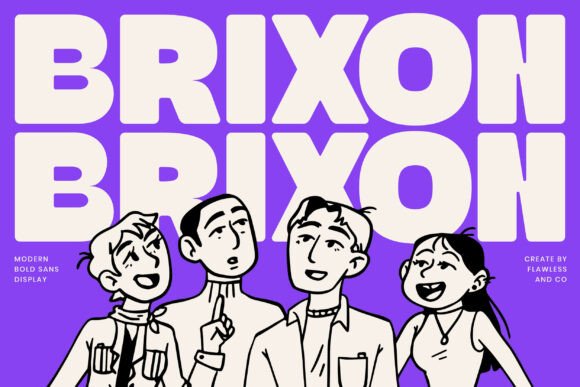
The Power of Brixon Font: A Designer’s New Best Friend
I still remember the design project that made me fall in love with the Brixon font. I was working on a branding campaign for a trendy new coffee shop, and I needed a font that would make a bold statement. After hours of scrolling through font libraries, I stumbled upon Brixon – and it was love at first sight! 💡 The strong shapes, confident proportions, and modern character instantly caught my attention. In this article, I’ll share my experience with Brixon, its features, and how to make the most of it in your designs.
An Honest Review of Brixon Font
What I Love About Brixon ✨
• ✅ Instant Impact: Brixon is designed to make a statement, and it delivers! Its bold sans serif style is perfect for headlines, titles, and any design that needs a confident touch.
• ✅ Clean and Expressive: The font’s clean lines and expressive features make it highly readable, even at large sizes. This is especially useful for billboards, posters, or any design that needs to be seen from a distance.
• ✅ Modern Character: Brixon’s modern character gives it a fresh and trendy feel, making it perfect for brands that want to appear youthful and vibrant.
• ✅ Highly Versatile: Brixon can be used in a variety of design projects, from branding and advertising to packaging and digital media.
• ⚠️ Limited Use in Body Text: While Brixon is amazing for headlines and titles, it’s not the best choice for body text. Its bold style can be overwhelming for longer blocks of text.
• ⚠️ Glyph Limitations: Brixon has a limited set of glyphs, which might not be sufficient for designs that require a wide range of special characters or languages.
The Backstory of Brixon Font
Brixon font was designed with the goal of creating a bold, modern sans serif font that would make an instant impact. The designer wanted to create a font that would be perfect for headlines, titles, and any design that needs a confident touch. With its strong shapes, confident proportions, and modern character, Brixon delivers powerful visual energy that stands out in any design.
Q: What is Brixon font best used for?
A: Brixon font is best used for headlines, titles, and any design that needs a bold, confident touch. It’s perfect for branding, advertising, packaging, and digital media.
Q: Can I use Brixon font for body text?
A: While Brixon is amazing for headlines and titles, it’s not the best choice for body text. Its bold style can be overwhelming for longer blocks of text.
Q: Is Brixon font suitable for digital media?
A: Yes, Brixon font is suitable for digital media. Its clean and expressive style makes it highly readable on screens, and its bold style makes it perfect for social media graphics, website headers, and more.